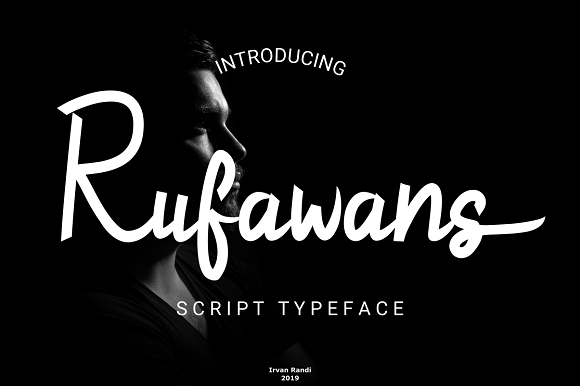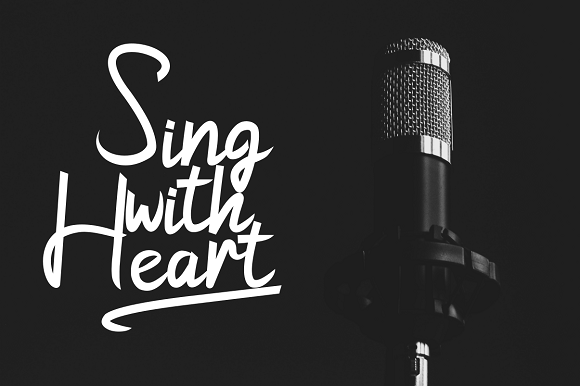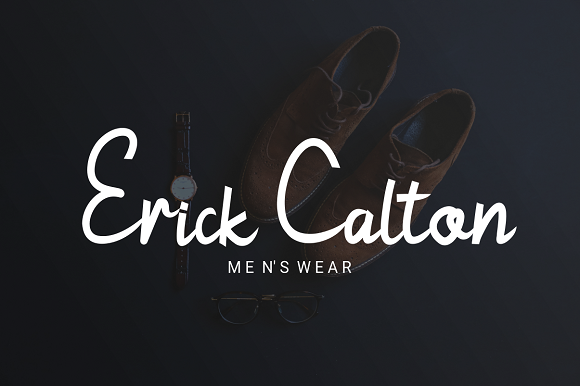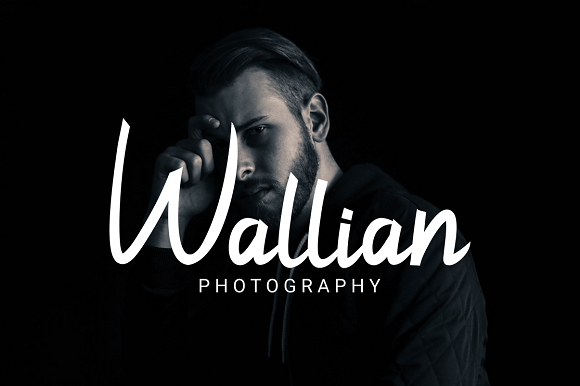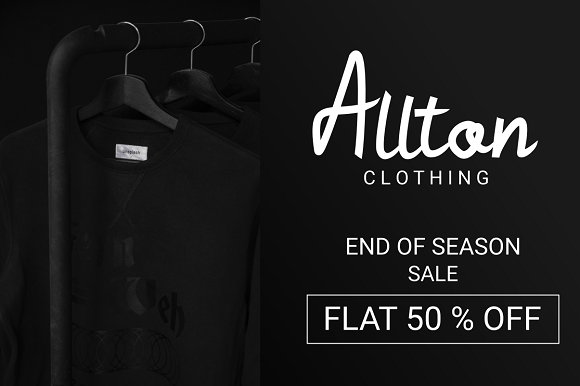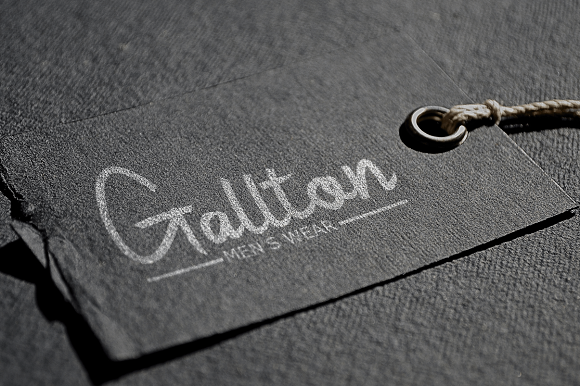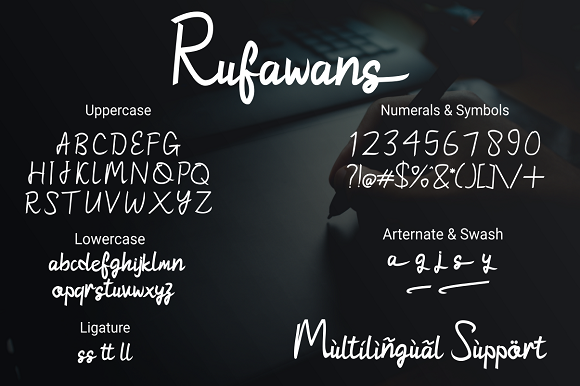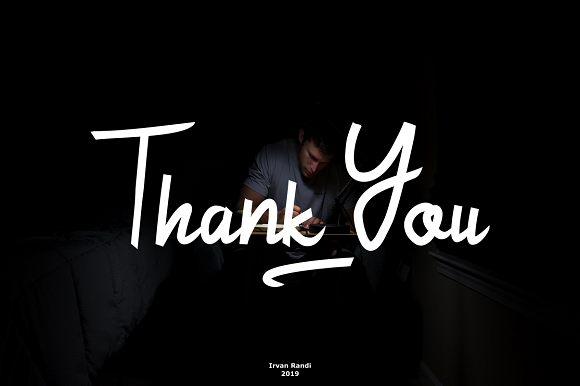
Rufawans Font
About Rufawans Font
The Rufawans is a fresh & modern script font. It has a handmade calligraphy style and includes amazing decorative characters.